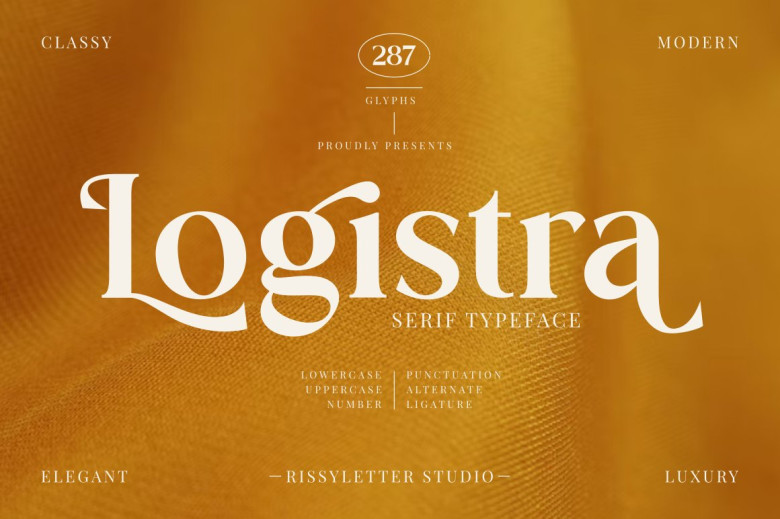
Logistra font for example is used for a serif font in your mid-summer design; it seems thick and thin strokes on the glyph contrast user can use the font structure with straight lines and smooth curves. therefore logistra font is professional and elegant, and various alternative letters and ligatures your typography design look different and attractive. Additionally, user can use the Logistra font in many projects such as hand lettering, merchandise, advertisements, invitations, social media posts, video thumbnails, quotes and etc.
Logistra Serif Font